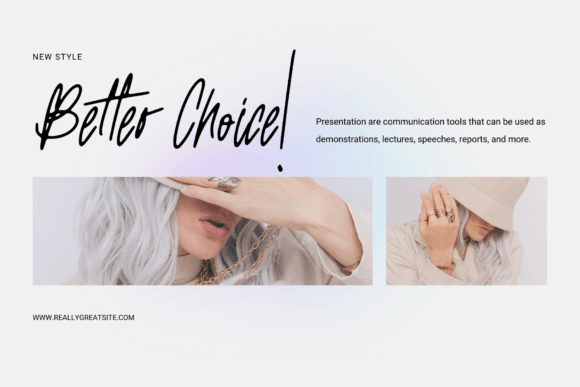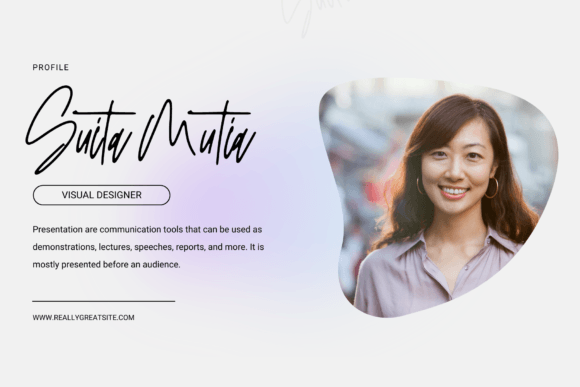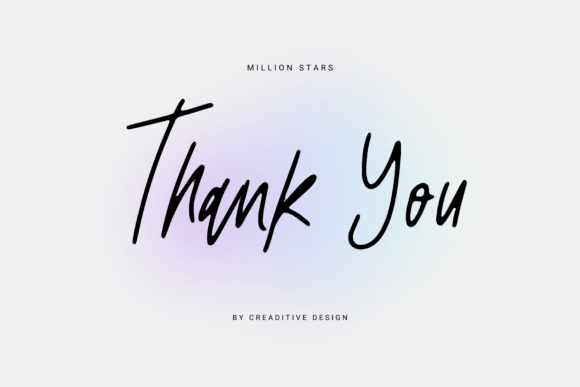
Introduction to Million Stars Font
Have you ever found yourself staring at a blank page, searching for the perfect font to bring your creative project to life? That’s exactly what happened to me when I stumbled upon the Million Stars Font. Its thin, elegant lines and monoline script style instantly caught my attention, and I knew I had to dive deeper.
As a designer, I’m always on the lookout for high-quality design resources that can elevate my work. And let me tell you, the Million Stars Font is a game-changer. With its transparent background and free download option, it’s a versatile tool that can be used for a variety of creative projects, from eye-catching social media posts to stunning signs and headings.
Whether you’re working on a personal project or a client’s design, the Million Stars Font is a valuable addition to your design arsenal. Its ravishing style and high-quality design make it perfect for designers who want to add a touch of sophistication and elegance to their work.
Key Features of Million Stars Font
- High-quality design resource for creative projects, ideal for backgrounds, overlays, and graphics.
- Offers high-resolution graphics, perfect for use in print materials, web design, and digital applications.
- Unique, creative design that can add a touch of magic to any project, from branding and marketing materials to art and graphics.
- Comes in a large size, making it perfect for use as a background or overlay in designs.
Honest Review: Million Stars Font
I recently stumbled upon the Million Stars Font, a free download that’s been making waves in the design community. As a designer, I’m always on the lookout for high-quality resources that can elevate my creative projects.
Here’s what I love about the Million Stars Font:
- ✨ It’s incredibly versatile, making it perfect for a wide range of design projects, from branding to editorial design.
- ✨ The font’s unique, hand-drawn aesthetic gives it a personal touch that’s hard to find in mass-produced fonts.
- ✨ The transparent background makes it easy to layer and manipulate the font in design software.
- ⚠️ The font can be a bit tricky to read at smaller sizes, which may limit its use in certain contexts.
- ⚠️ Some users may find the font’s whimsical style too distracting for certain projects.
Overall, I’m impressed with the Million Stars Font’s potential and would recommend it to designers looking for a unique, high-quality design resource.
Tips for Getting the Most Out of the Million Stars Font
Here are a few tips for getting the most out of the Million Stars Font:
- Use the Million Stars Font in combination with a transparent background to create a unique and eye-catching design.
- Experiment with different font sizes and styles to add depth and interest to your design.
- Use the Million Stars Font in a creative project, such as a logo or branding materials.
The Million Stars Font is a versatile design resource that can be used in a variety of projects, including:
- Presentation design
- Document design
What is the recommended size for using the Million Stars Font in a design project?
The Million Stars Font is a high-quality font, and it can be used at various sizes depending on the design project. However, we recommend using it at a minimum size of 12pt to ensure optimal readability and visual impact. This will help you achieve the best results in your creative project.